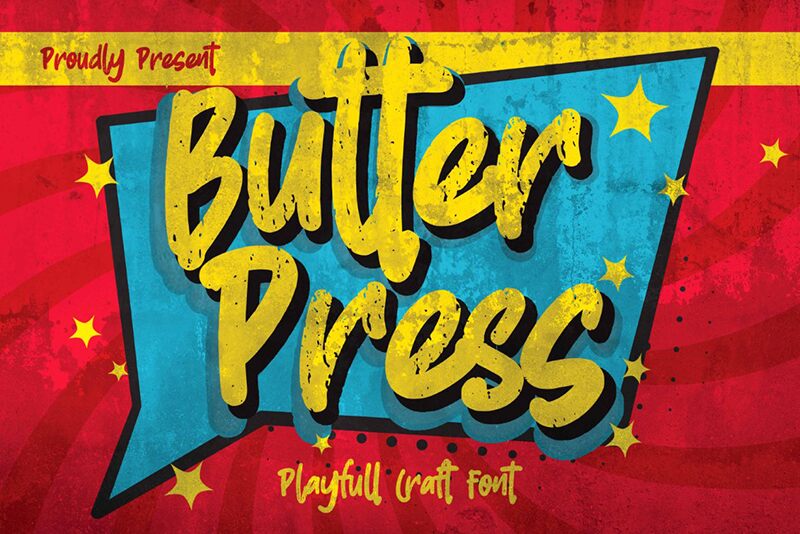
Introducing Butter Press - the bold and edgy font that's perfect for all your creative projects! Designed by Anang F - Malik of Gassstype© Studio 2021, this condensed font style is perfect for adding a touch of grunge to your designs. Its eroded script style exudes a sense of raw energy, making it ideal for projects that need to stand out from the crowd. Whether you're designing posters, logos, or packaging, Butter Press is the perfect choice for adding a touch of personality to your work. So why wait? Download Butter Press today and start creating something truly unique!